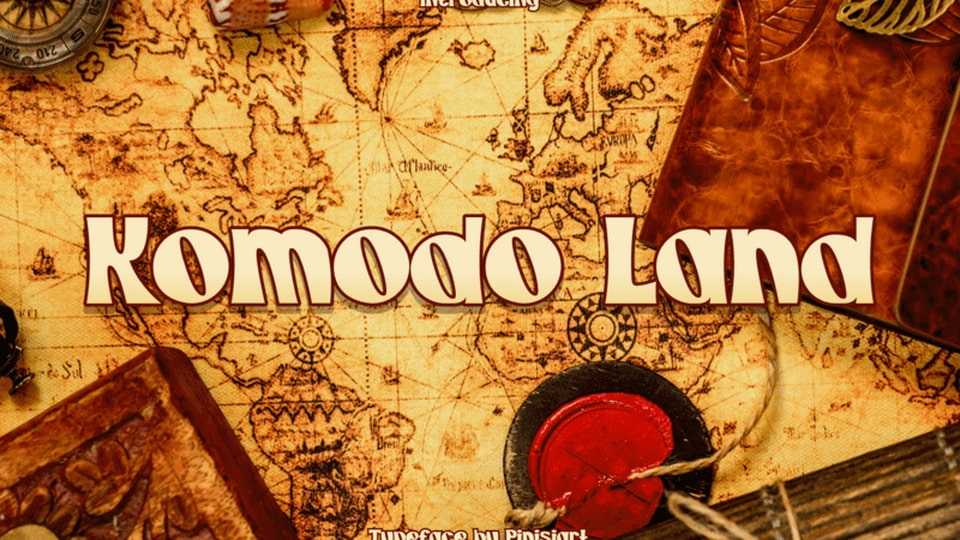
Download Komodo Land font, an adventure display typeface. This bring a lot of exploration vibes in it. Imagine that you are the Captain of this sail ship, exploring the seven seas and finding an exotic island along the way.